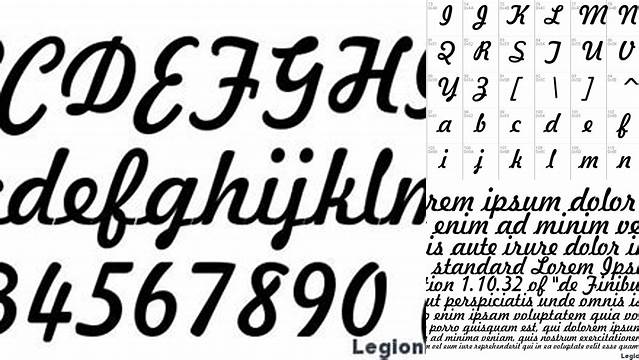
Freehand 521 BT Font: Uses, Download, And Tips
Hey guys! Are you looking for a unique and stylish font to add a personal touch to your designs? Look no further! In this comprehensive guide, we'll dive deep into the Freehand 521 BT font, exploring its history, characteristics, best uses, and how you can get your hands on it. We'll also cover some tips and tricks for using this font effectively to make your projects stand out. So, buckle up and let's get started!
What is Freehand 521 BT Font?
Freehand 521 BT is a distinctive script font known for its flowing, handwritten style. It's designed to mimic natural handwriting, giving your text a personal and informal feel. This makes it perfect for projects that require a touch of warmth and authenticity. The Freehand 521 BT font falls under the category of script fonts, which are characterized by their cursive or handwriting-like appearance. Script fonts often evoke feelings of elegance, creativity, and personalization. The uniqueness of Freehand 521 BT lies in its slightly rough edges and varied stroke widths, which contribute to its hand-drawn aesthetic. This font is not just a typeface; it's a way to inject character and emotion into your designs. Whether you're crafting invitations, designing logos, or adding flair to your website, Freehand 521 BT can be a powerful tool in your design arsenal. The font's origins can be traced back to Bitstream, a renowned font foundry known for its extensive library of high-quality typefaces. Bitstream has a long history of creating fonts that are both aesthetically pleasing and technically sound, and Freehand 521 BT is a testament to their expertise. This font has stood the test of time, remaining a popular choice among designers and creatives for its versatility and charm. It's a font that can seamlessly transition between different design styles, from vintage to modern, adding a touch of personality to each project. So, if you're seeking a font that combines the elegance of handwriting with the precision of digital design, Freehand 521 BT is definitely worth exploring. Let’s delve further into what makes this font so special and how you can leverage its unique qualities in your creative endeavors.
History and Origin of Freehand 521 BT
The history of the Freehand 521 BT font is closely tied to the legacy of Bitstream Inc., a pioneering digital type foundry. To truly appreciate Freehand 521 BT, understanding its origins is key. Bitstream, founded in 1981, played a crucial role in the early days of digital typography. They were among the first to develop digital fonts, making significant contributions to the standardization and accessibility of typefaces in the digital age. Bitstream's innovative approach to font design and technology set the stage for many of the font formats and tools we use today. Freehand 521 BT emerged from Bitstream's extensive library of fonts, designed to capture the essence of natural handwriting. The font's creation was driven by a desire to offer designers a typeface that felt personal and authentic, a departure from the more rigid and formal fonts that were prevalent at the time. This focus on mimicking human touch is what gives Freehand 521 BT its distinctive character. The exact date of the font's release isn't widely documented, but it gained popularity in the late 1980s and early 1990s, a period when the demand for diverse and expressive fonts was growing rapidly. Designers were seeking typefaces that could convey emotions and create visual interest, and Freehand 521 BT fit the bill perfectly. Over the years, Freehand 521 BT has been used in a wide range of applications, from print design to digital media. Its enduring appeal is a testament to its timeless quality and versatility. The font's handwritten style remains relevant in a world where personalization and authenticity are highly valued. Understanding the historical context of Freehand 521 BT provides insight into its design philosophy and its place in the broader landscape of typography. It's a font with a rich heritage, crafted by a company that helped shape the digital typography industry. As we continue to explore its characteristics and uses, you'll see how this font has stood the test of time and remains a valuable asset for designers and creatives. So, let's dive deeper into what makes Freehand 521 BT tick and how you can use it to enhance your projects.
Key Characteristics of Freehand 521 BT Font
To effectively use the Freehand 521 BT font, it's crucial to understand its key characteristics. These features contribute to its unique appeal and determine its suitability for various design projects. The most striking characteristic of Freehand 521 BT is its handwritten style. The font mimics the natural flow and irregularities of human handwriting, making it appear less formal and more personal than many other script fonts. This handwritten quality is achieved through varying stroke widths, slightly uneven baselines, and subtle imperfections that add to its charm. Unlike perfectly uniform fonts, Freehand 521 BT has a dynamic quality that makes it feel alive and authentic. Another notable characteristic is its legibility. While some script fonts can be difficult to read, Freehand 521 BT strikes a balance between style and clarity. The letterforms are well-defined, and the spacing is carefully considered, ensuring that the text remains readable even at smaller sizes. This legibility makes it a versatile choice for a range of applications, from body text in shorter pieces to headlines and titles. The font's overall appearance is casual and friendly. It evokes a sense of warmth and approachability, making it ideal for projects that aim to connect with the audience on a personal level. Whether you're designing a greeting card, creating a logo for a small business, or adding a touch of personality to your website, Freehand 521 BT can help you create a welcoming and engaging visual experience. Furthermore, Freehand 521 BT has a distinctive rhythm and flow. The letters connect smoothly, creating a sense of movement and energy. This fluidity is particularly noticeable in longer words and phrases, where the font's handwritten style truly shines. The varying heights and widths of the letters also contribute to this rhythmic quality, adding visual interest and preventing the text from looking monotonous. Finally, the font's versatility extends to its compatibility with different design styles. While it's particularly well-suited for informal and creative projects, it can also be used in more formal contexts when a touch of personality is desired. Its adaptability makes it a valuable asset in any designer's toolkit. By understanding these key characteristics, you can make informed decisions about when and how to use Freehand 521 BT to achieve the desired effect in your designs. Now, let's explore some specific use cases where this font truly excels.
Best Uses for Freehand 521 BT Font
Now that we understand the characteristics of Freehand 521 BT font, let's explore its best uses. This font's unique style makes it a fantastic choice for a variety of projects, adding a touch of personality and warmth. One of the most popular uses for Freehand 521 BT is in invitations and greeting cards. The handwritten feel of the font makes it perfect for conveying a personal and heartfelt message. Whether you're designing wedding invitations, birthday cards, or thank-you notes, Freehand 521 BT can add a touch of elegance and charm. The font's flowing script and slightly informal style create a welcoming and friendly tone, making recipients feel special and valued. Another excellent application for Freehand 521 BT is in logos and branding. If you're looking to create a brand identity that feels approachable and authentic, this font can be a great choice. It's particularly well-suited for businesses that want to convey a sense of creativity, craftsmanship, or personal connection. Think of handcrafted goods, artisanal products, or boutique services – Freehand 521 BT can help these brands communicate their unique identity and values. In the realm of web design, Freehand 521 BT can be used to add visual interest and personality. It works well for headings, subheadings, and call-to-action buttons, drawing the user's eye and creating a memorable impression. However, it's important to use it sparingly and strategically, as too much script text can be difficult to read online. When used judiciously, Freehand 521 BT can enhance the user experience and make your website stand out from the crowd. Print materials, such as brochures, posters, and flyers, can also benefit from the use of Freehand 521 BT. The font's distinctive style can help your designs grab attention and convey your message effectively. It's particularly useful for projects that require a human touch, such as marketing materials for events, workshops, or creative services. The font's versatility allows it to be paired with a variety of other typefaces, making it easy to integrate into your existing design aesthetic. Finally, Freehand 521 BT is a great choice for personal projects, such as scrapbooking, journaling, and DIY crafts. Its handwritten style adds a personal touch to these projects, making them feel more meaningful and unique. Whether you're documenting memories, expressing your creativity, or adding flair to your handmade gifts, Freehand 521 BT can help you bring your vision to life. By understanding the best uses for Freehand 521 BT, you can leverage its unique qualities to create designs that are both stylish and effective. Next, we'll discuss where you can find this fantastic font.
Tips and Tricks for Using Freehand 521 BT Font Effectively
Using Freehand 521 BT font effectively requires a bit of finesse. It's not just about slapping it onto your design; it's about understanding how to leverage its unique qualities to create a visually appealing and impactful result. Here are some tips and tricks to help you get the most out of this font. First and foremost, consider the context. Freehand 521 BT is a script font, which means it's best suited for specific applications. It excels in situations where you want to convey a personal, informal, or creative tone. Think invitations, logos, headings, and short bursts of text. However, it's generally not a good choice for large blocks of body text, as its handwritten style can become tiring to read over extended periods. Pairing is key. Choosing the right fonts to complement Freehand 521 BT is crucial for creating a harmonious design. A good rule of thumb is to pair it with a clean and simple sans-serif font. This creates a visual contrast that enhances readability and prevents your design from looking too cluttered. Think of fonts like Open Sans, Montserrat, or Lato as reliable companions for Freehand 521 BT. Use it sparingly. While Freehand 521 BT is a beautiful font, overusing it can diminish its impact. It's best to use it strategically, highlighting key elements of your design rather than applying it to everything. For example, you might use it for a logo or a headline, but opt for a more neutral font for the body text. This approach ensures that Freehand 521 BT stands out and makes a statement without overwhelming the viewer. Pay attention to letter spacing and kerning. Script fonts often require manual adjustments to letter spacing and kerning to ensure optimal readability. Take the time to fine-tune the spacing between letters, especially in headings and logos. This will make your text look more polished and professional. Experiment with color and size. Freehand 521 BT can look very different depending on the color and size you use. Try experimenting with different combinations to see what works best for your design. For example, a large, bold rendering of Freehand 521 BT in a contrasting color can create a striking headline, while a smaller, more subtle application of the font can add a touch of elegance to body text. Consider the overall aesthetic. Freehand 521 BT has a distinctive handwritten style, so it's important to ensure that it fits with the overall aesthetic of your design. It works well with vintage, rustic, and handmade-inspired designs, but it may not be the best choice for projects that require a more modern or formal look. By following these tips and tricks, you can use Freehand 521 BT effectively to create designs that are both beautiful and impactful. Remember, the key is to use it thoughtfully and strategically, considering the context, pairing, and overall aesthetic of your project. Now, let's wrap things up with a final summary of the font.
So, guys, we've reached the end of our deep dive into the Freehand 521 BT font. We've explored its history, characteristics, best uses, and how to use it effectively. To recap, Freehand 521 BT is a unique and stylish script font that mimics natural handwriting, making it perfect for projects that require a personal touch. Its flowing lines, varying stroke widths, and slightly informal style make it a versatile choice for a wide range of applications, from invitations and logos to web design and personal projects. We've learned that Freehand 521 BT has a rich history, originating from Bitstream Inc., a pioneering digital type foundry. Its enduring appeal is a testament to its timeless quality and versatility. We've also discussed the key characteristics that make this font so special, including its handwritten style, legibility, casual appearance, and rhythmic flow. Understanding these characteristics is crucial for using the font effectively and achieving the desired effect in your designs. We've explored the best uses for Freehand 521 BT, highlighting its suitability for invitations, logos, web design, print materials, and personal projects. We've also provided guidance on where to download the font, emphasizing the importance of using reputable sources and checking licensing terms. Finally, we've shared some tips and tricks for using Freehand 521 BT effectively, including considering the context, pairing it with appropriate fonts, using it sparingly, paying attention to letter spacing and kerning, experimenting with color and size, and ensuring it fits with the overall aesthetic of your design. In conclusion, Freehand 521 BT is a valuable asset for any designer or creative looking to add a touch of personality and warmth to their projects. Its handwritten style and versatile nature make it a standout choice in the world of typography. By understanding its characteristics and following our tips and tricks, you can leverage this font to create designs that are both beautiful and impactful. So go ahead, guys, and give Freehand 521 BT a try – you might just find it's the perfect font for your next project!